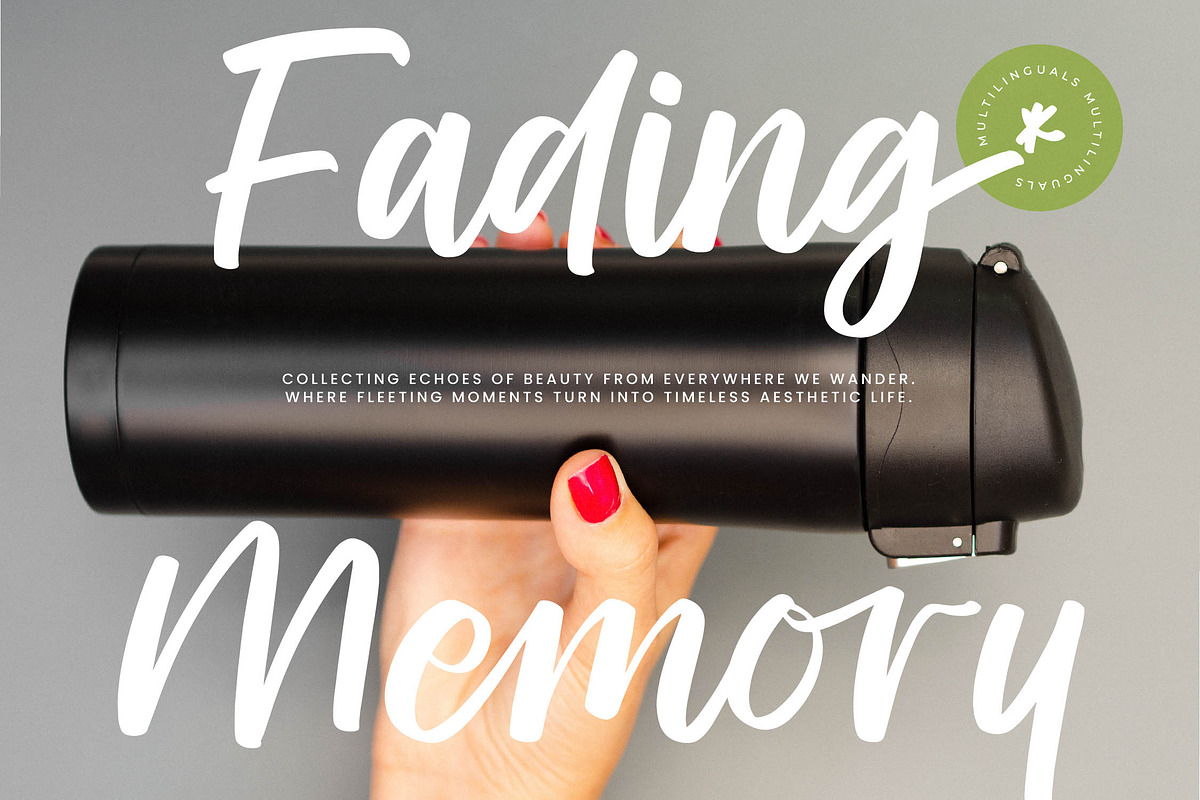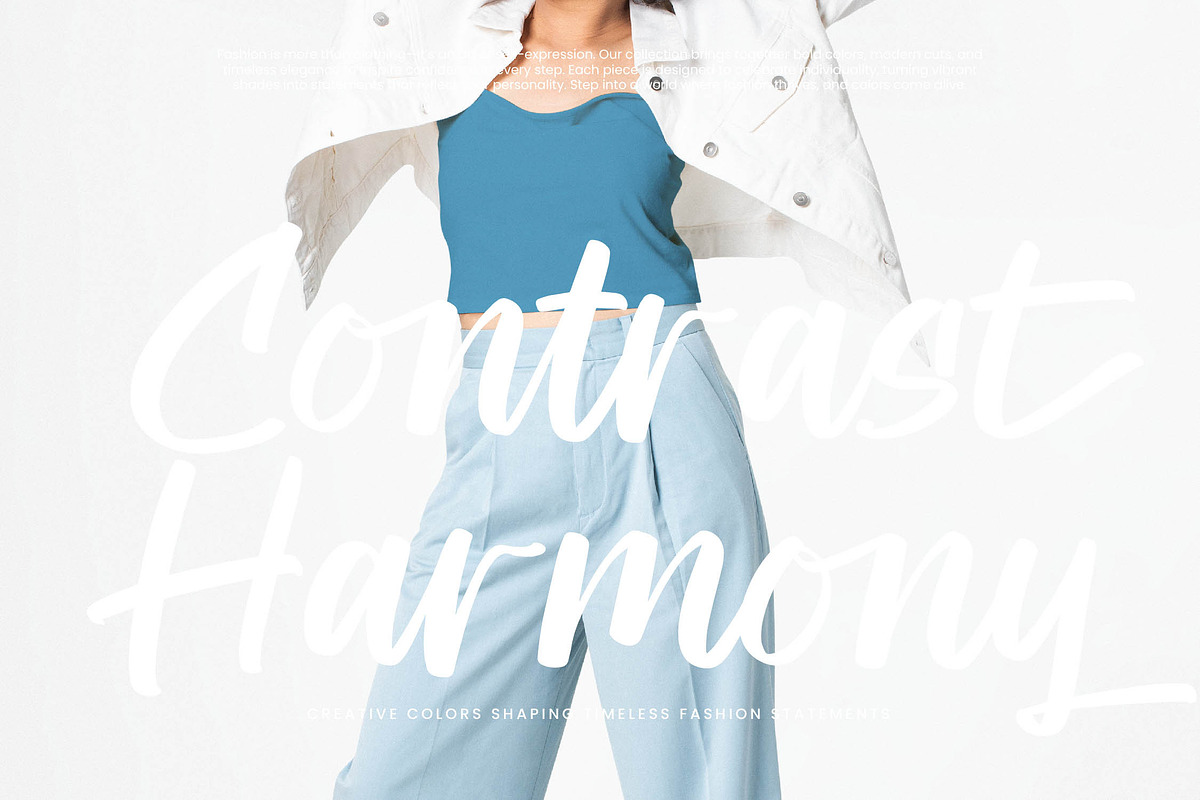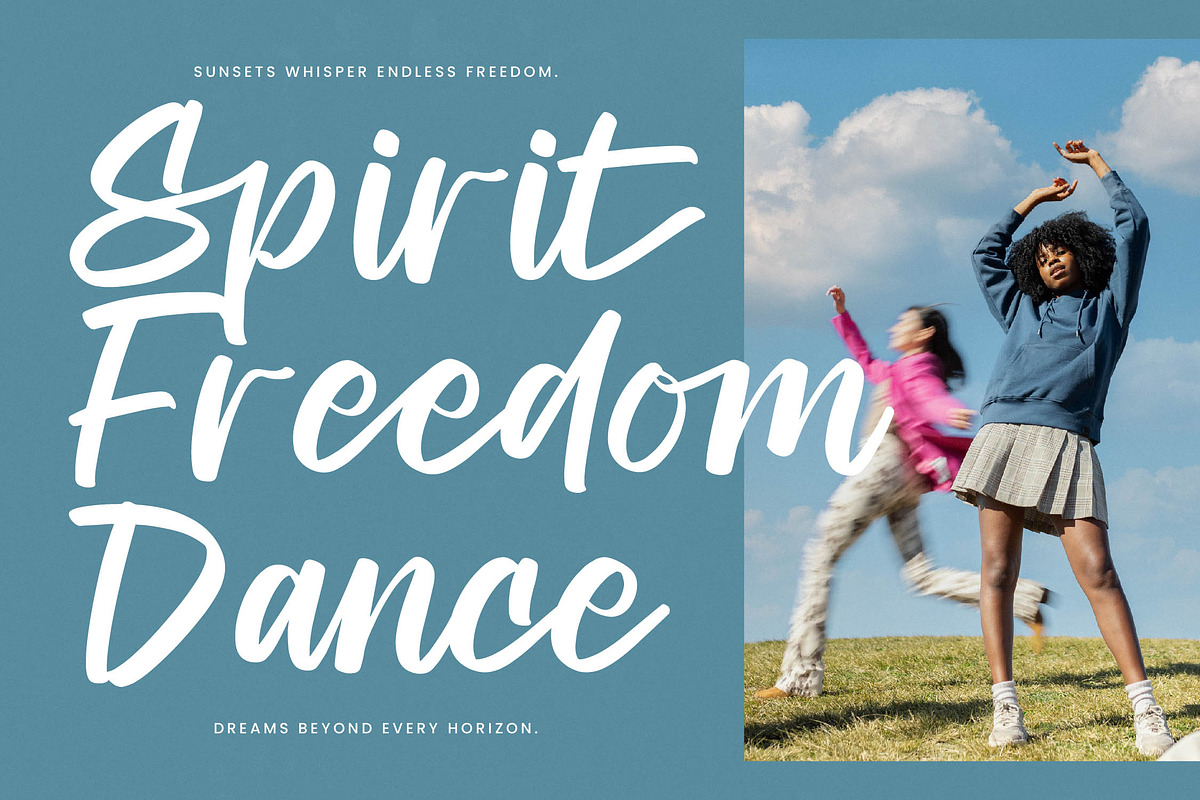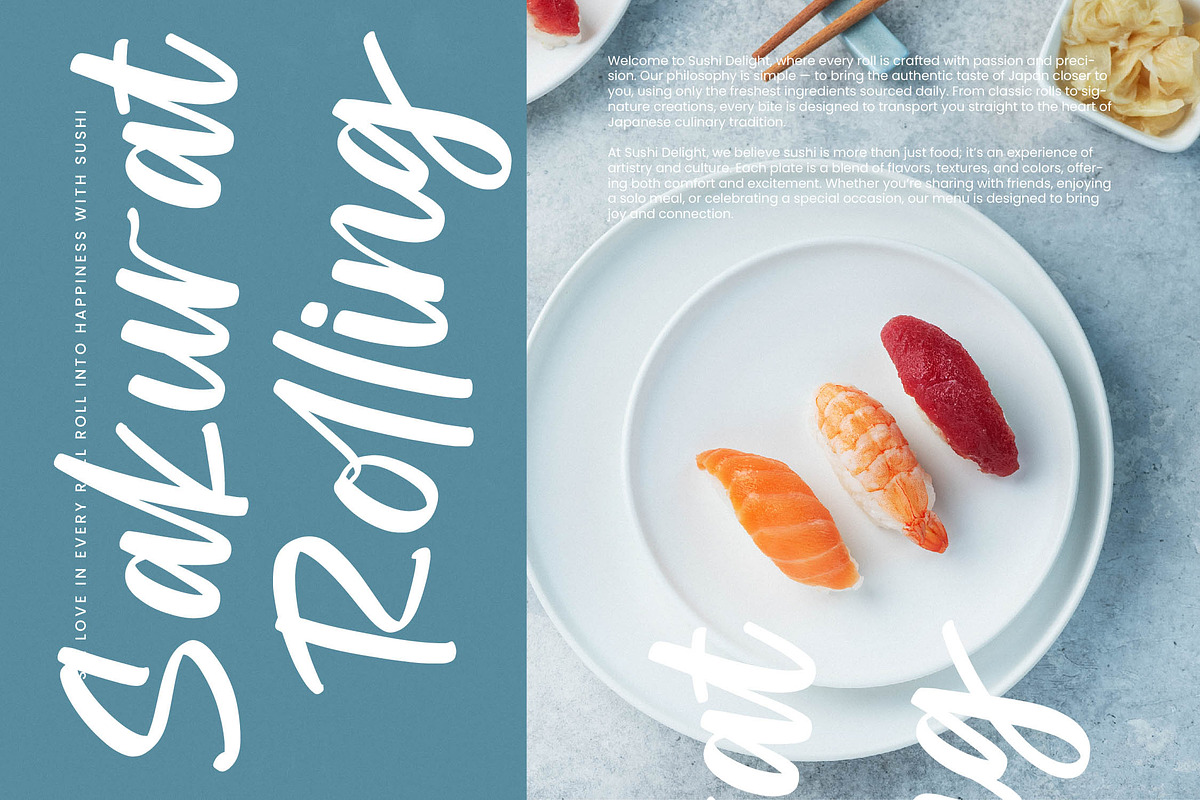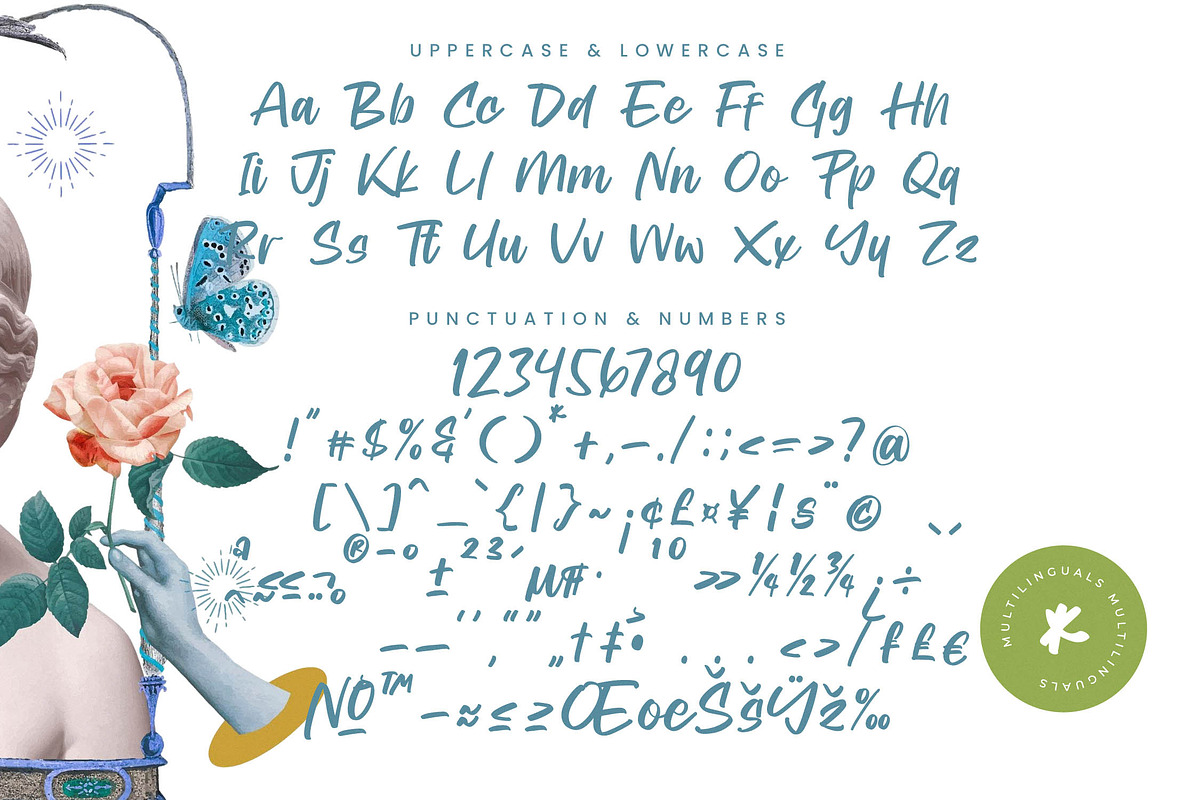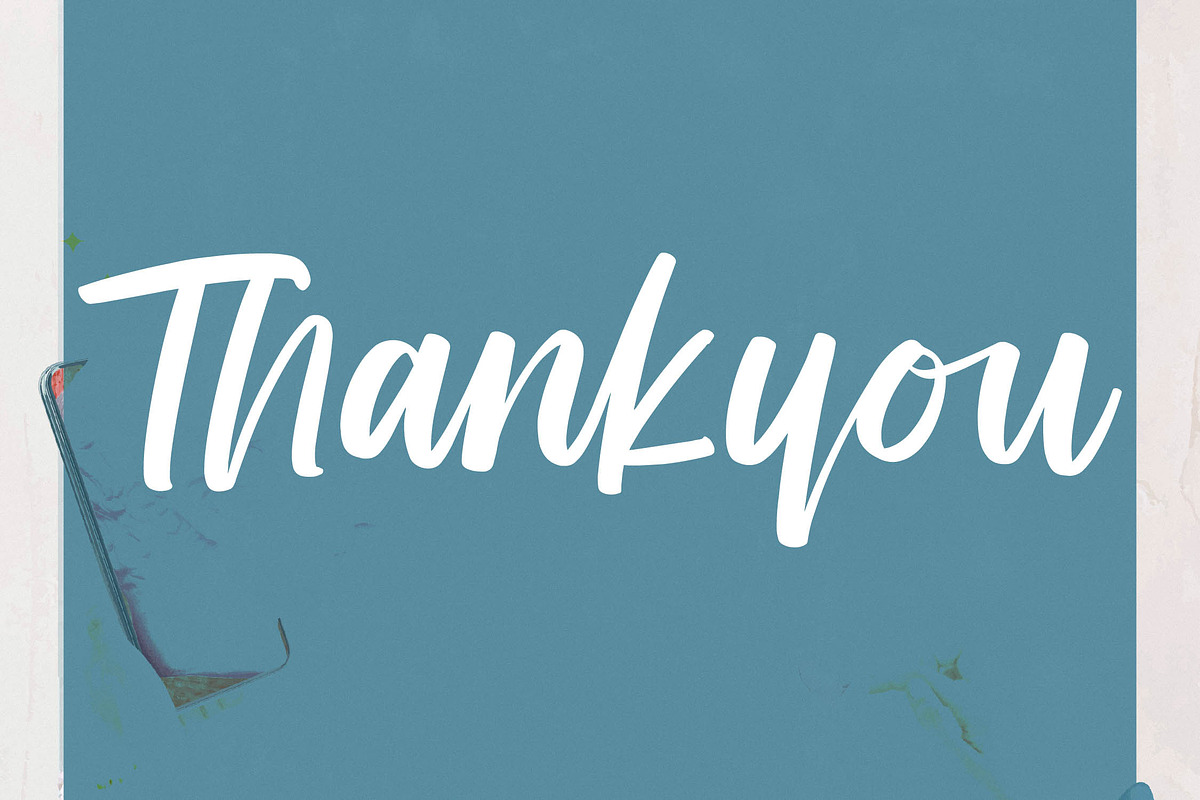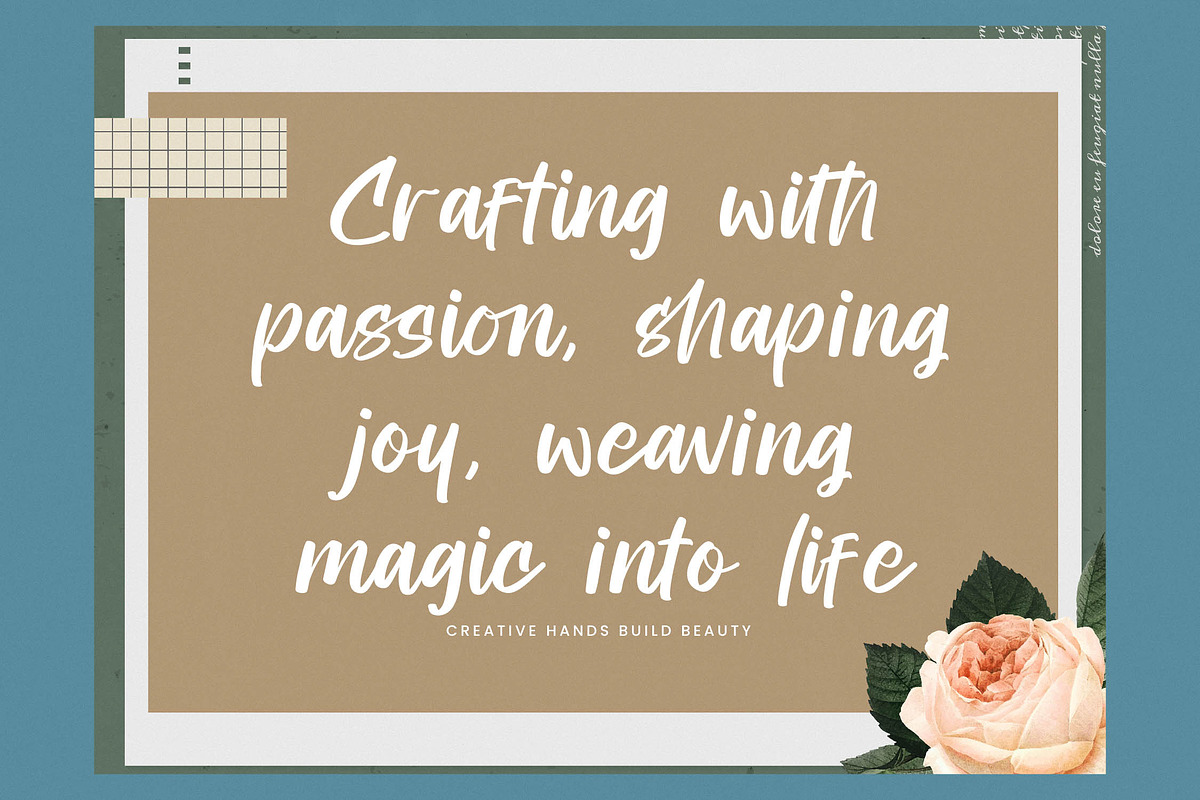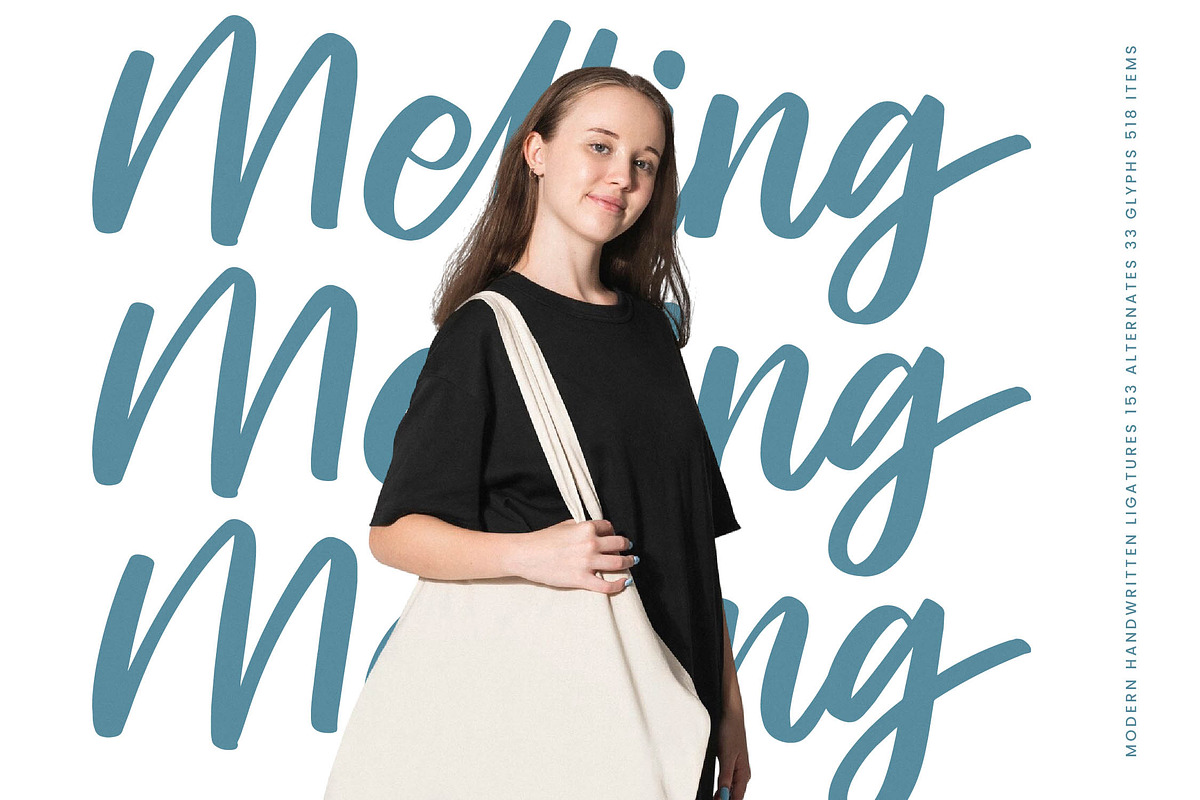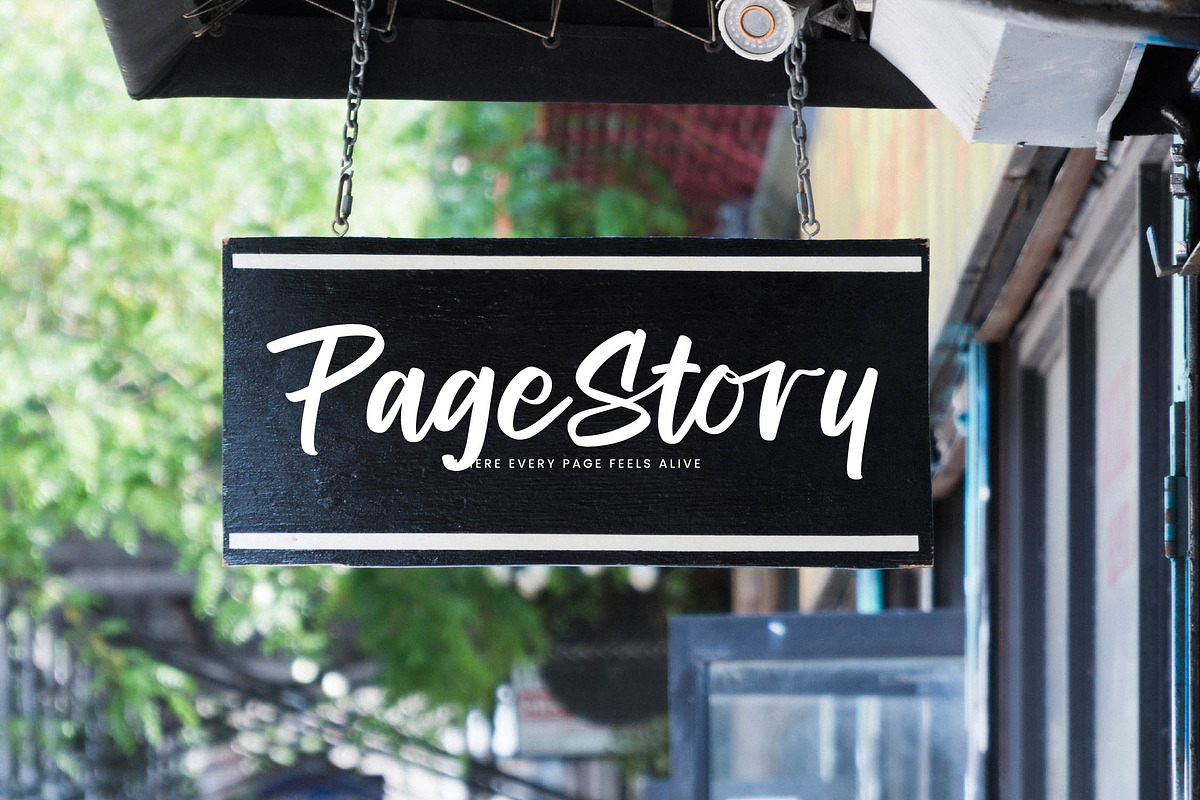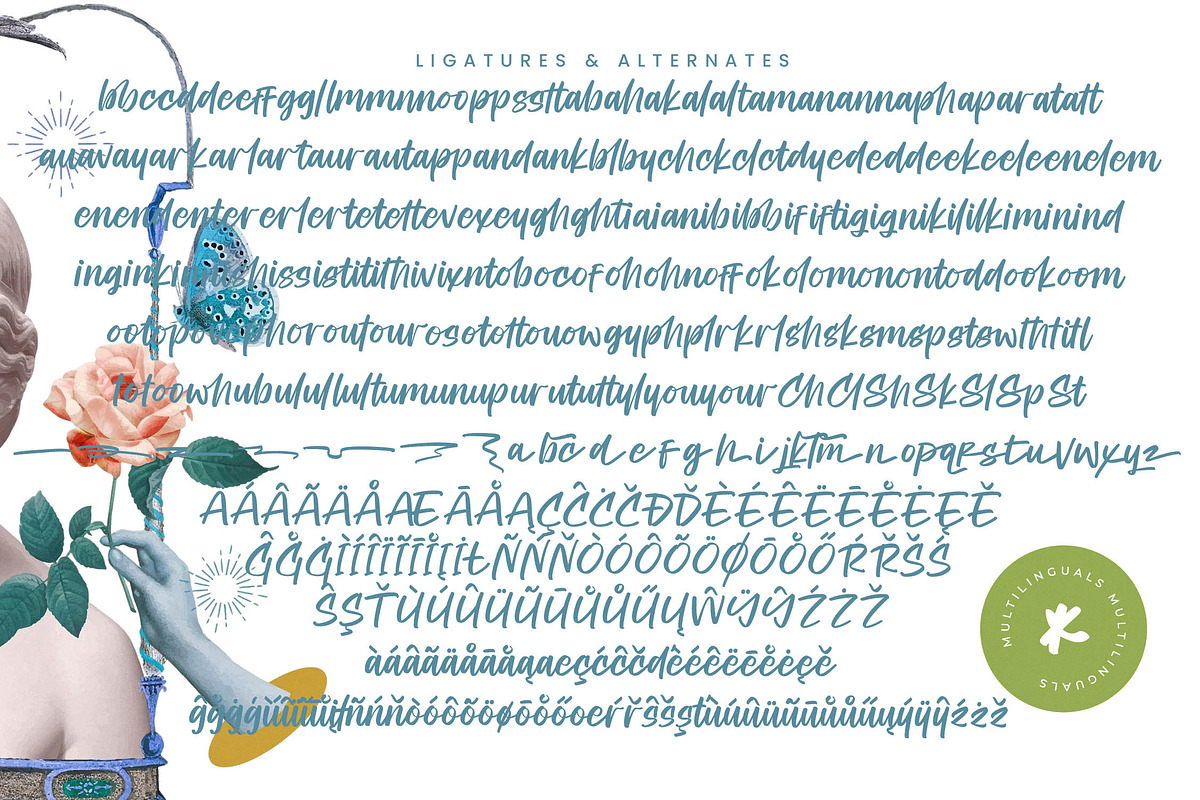
Melting Bakeds Modern Handwritten
Melting Bakeds - Modern Handwritten Font , from Stylishtype , Suitable for any projects such as: logos, branding projects, homeware designs, product packaging, mugs, quotes, posters, shopping bags, t-shirts, book covers, name card, invitation cards, greeting cards, label, photography, watermark, special events, and all your other luxury and beautiful projects that need a Luxury Script taste.
- 153 Ligature 33 Alternates & Swashes